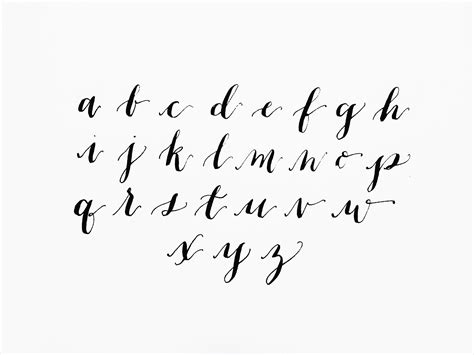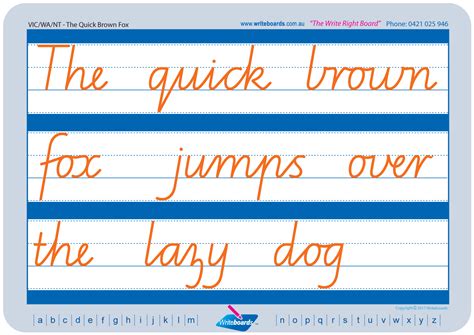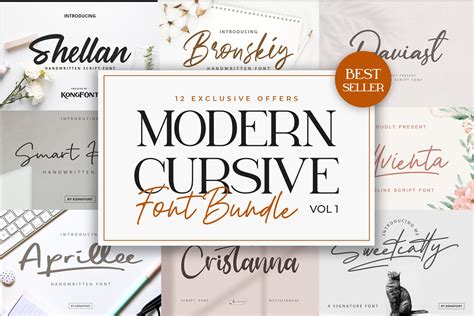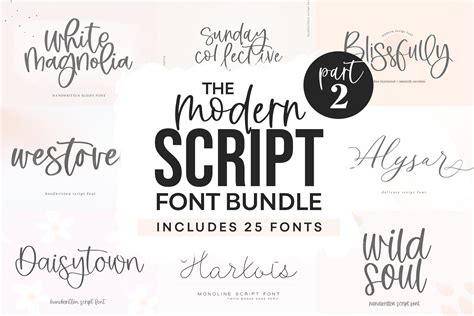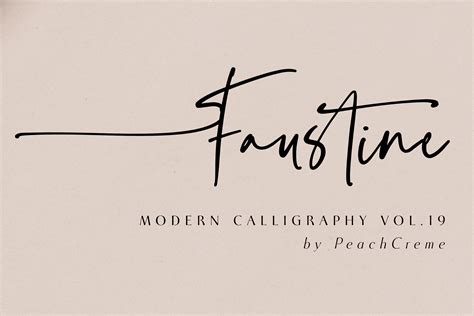
In the digital age, where technology dominates our daily lives, the art of handwriting often takes a backseat. However, there is a resurgence of interest in the elegance and personal touch that handwritten notes and letters bring. One of the key elements that make handwriting so appealing is the use of a contemporary cursive font. This style not only adds a touch of sophistication but also makes the text more readable and aesthetically pleasing. Whether you are a calligraphy enthusiast, a stationery lover, or someone who appreciates the beauty of handwritten notes, understanding the nuances of a contemporary cursive font can enhance your writing experience.
Understanding Contemporary Cursive Font
A contemporary cursive font is a modern interpretation of traditional cursive writing. It combines the fluidity and elegance of classic cursive with a more streamlined and simplified design. This font style is characterized by its smooth, flowing lines and the absence of the intricate loops and flourishes found in traditional cursive. The result is a font that is both visually appealing and easy to read, making it a popular choice for various applications, from personal correspondence to professional documents.
History and Evolution of Cursive Font
The history of cursive writing dates back to ancient times, with early forms of cursive script found in Roman and Greek manuscripts. Over the centuries, cursive writing has evolved, adapting to the changing needs of society. In the modern era, the contemporary cursive font has emerged as a response to the demand for a more practical and efficient writing style. This evolution has been driven by the need for faster and more legible handwriting, especially in an era where digital communication is prevalent.
Characteristics of Contemporary Cursive Font
A contemporary cursive font is distinguished by several key characteristics that set it apart from traditional cursive. These include:
- Simplicity: Contemporary cursive fonts often feature simpler, more straightforward letterforms. This makes them easier to write and read, reducing the likelihood of errors and misinterpretations.
- Flow: Despite their simplicity, contemporary cursive fonts maintain the fluid, connected style of traditional cursive. This flow gives the writing a natural, effortless quality.
- Legibility: One of the primary goals of a contemporary cursive font is to enhance readability. The letters are designed to be clear and distinct, making it easier for others to decipher your handwriting.
- Versatility: Contemporary cursive fonts can be used in a variety of contexts, from personal notes to formal documents. Their versatility makes them a valuable tool for anyone who values the art of handwriting.
Benefits of Using Contemporary Cursive Font
There are numerous benefits to using a contemporary cursive font in your writing. Some of the key advantages include:
- Improved Readability: The clear and distinct letterforms of a contemporary cursive font make it easier for others to read your handwriting. This is particularly important in professional settings where legibility is crucial.
- Enhanced Aesthetics: A contemporary cursive font adds a touch of elegance and sophistication to your writing. Whether you are writing a personal letter or a business document, the aesthetic appeal of cursive can make a positive impression.
- Personal Touch: In an era dominated by digital communication, handwritten notes and letters stand out. Using a contemporary cursive font adds a personal touch that can make your messages more meaningful and memorable.
- Efficiency: Contemporary cursive fonts are designed to be written quickly and efficiently. This makes them ideal for situations where speed is important, such as taking notes during a lecture or meeting.
How to Master Contemporary Cursive Font
Mastering a contemporary cursive font requires practice and patience. Here are some steps to help you improve your cursive writing skills:
- Start with the Basics: Begin by practicing the individual letters of the alphabet. Focus on forming each letter correctly and maintaining a consistent size and spacing.
- Connect the Letters: Once you are comfortable with the individual letters, start practicing connecting them. This will help you develop the fluid, connected style characteristic of cursive writing.
- Use Guides and Templates: There are many resources available to help you practice cursive writing. Guides and templates can provide a visual reference and help you maintain consistent letterforms.
- Practice Regularly: Like any skill, mastering a contemporary cursive font requires regular practice. Set aside time each day to practice your cursive writing, and you will see improvements over time.
π Note: It's important to remember that everyone's handwriting is unique. Don't be discouraged if your cursive writing doesn't look exactly like the examples you see. The goal is to develop a style that is both legible and personal to you.
Applications of Contemporary Cursive Font
A contemporary cursive font can be used in a variety of applications, from personal correspondence to professional documents. Some common uses include: